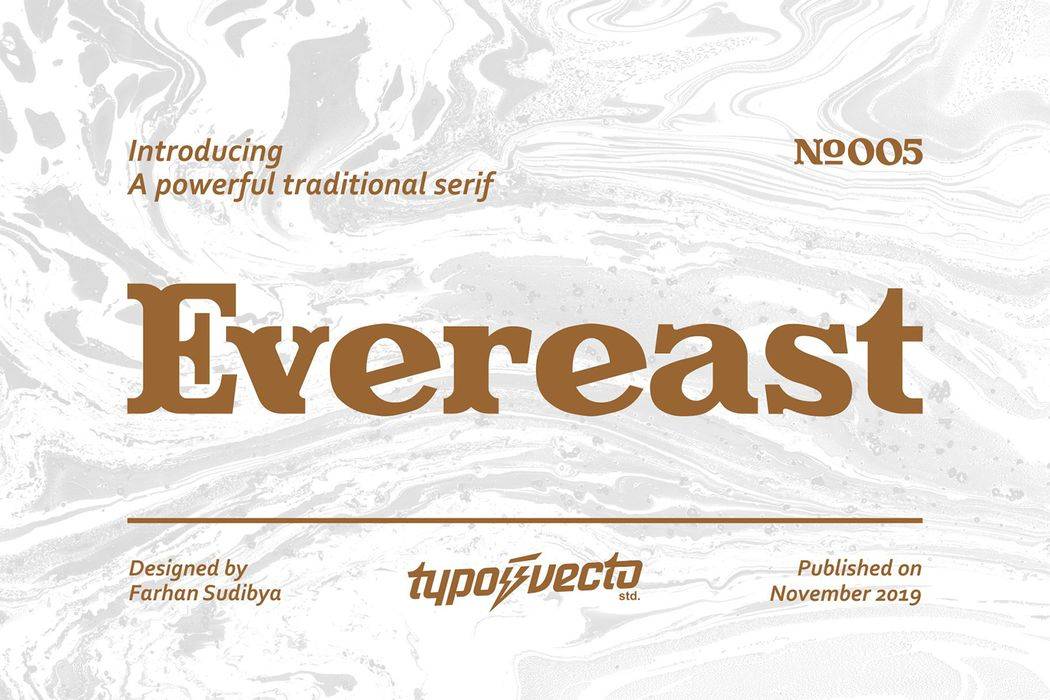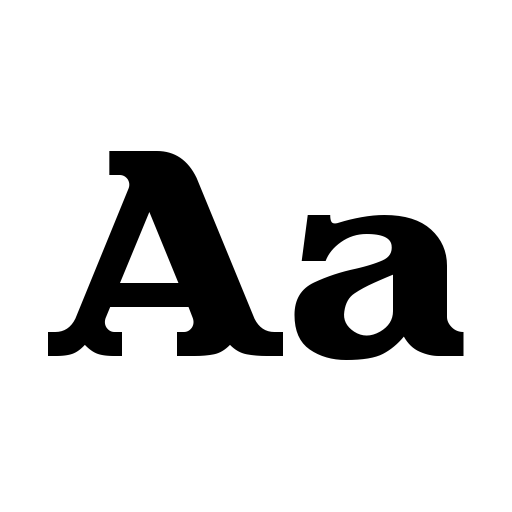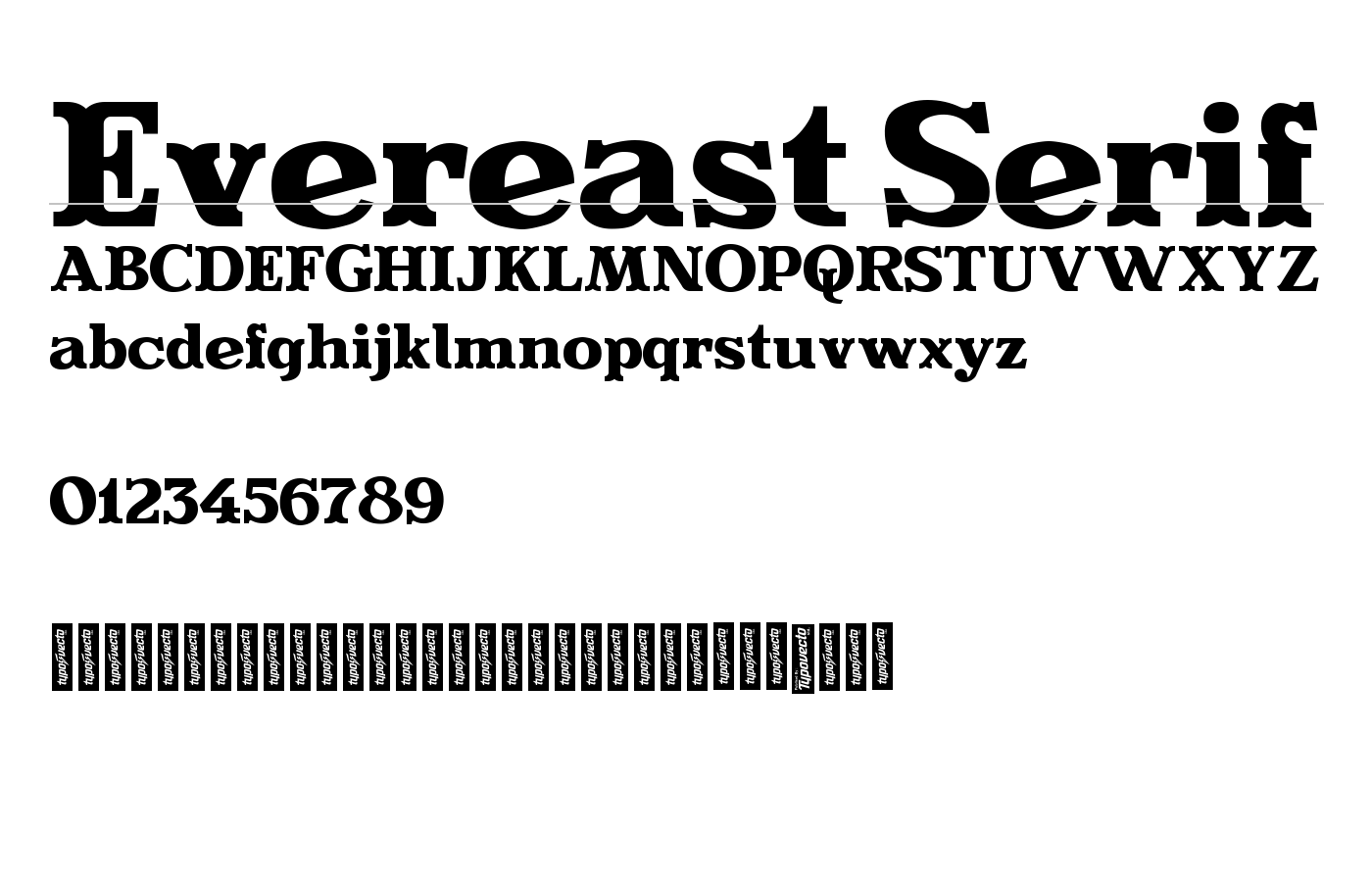
Evereast is a bold serif font with a strong, confident presence, featuring thick strokes and sharp, bracketed serifs that evoke a classic yet robust style. Its medium contrast and sturdy letterforms make it ideal for headlines, logos, and editorial design where a vintage, authoritative feel is desired. This font works well for brands aiming to convey tradition and strength with a touch of elegance.
Evereast Font
About Evereast Font
| Font family | Evereast Font |
| Designer | Farhan Sudibya |